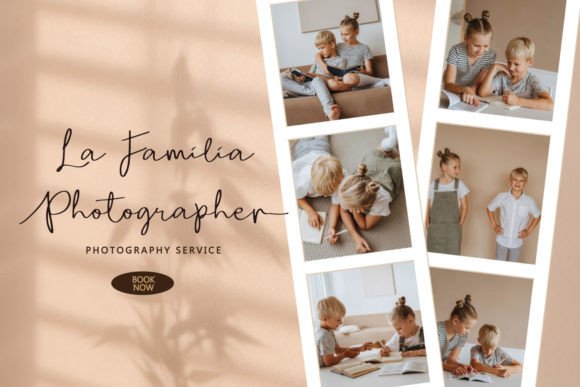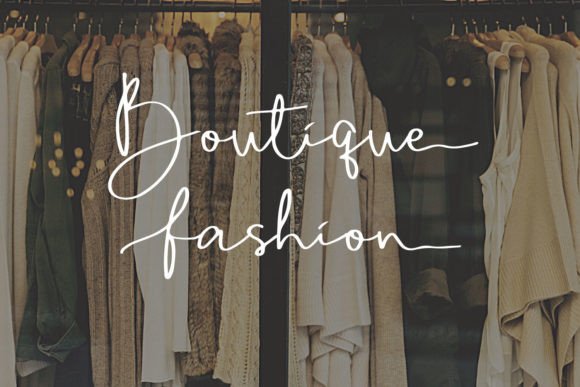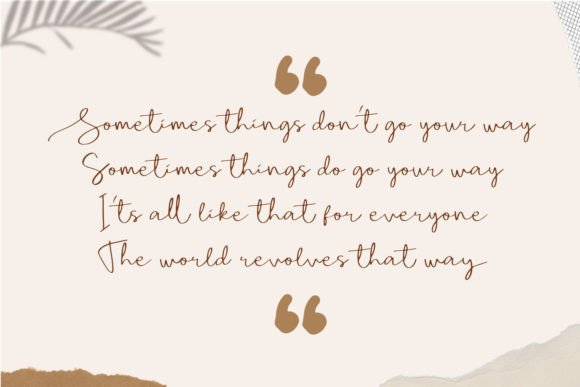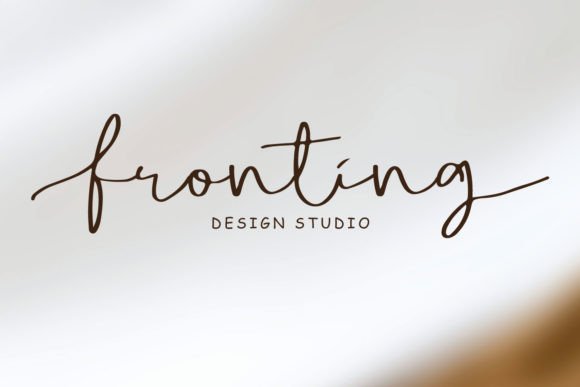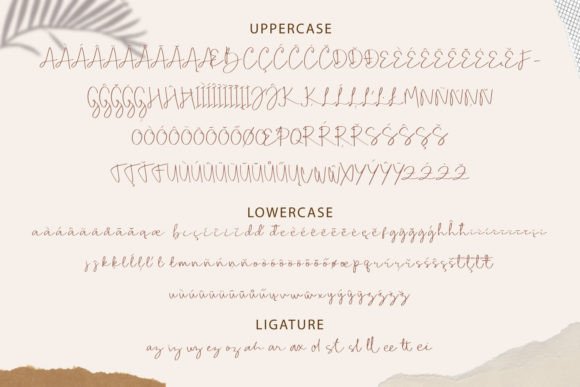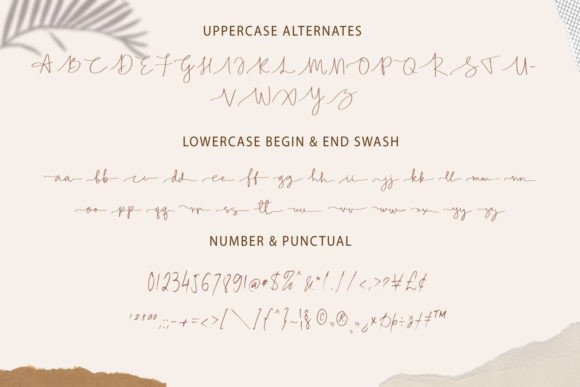
Beyond Eternity Font: The Sweet and Delicate Handwritten Font for Romantic Designs
Are you a designer or crafter looking for a font that can add a touch of romance and elegance to your designs? Look no further than the Beyond Eternity font. This sweet and delicate handwritten font is perfect for creating beautiful wedding invitations, cards, and other designs that require a personal and romantic touch.
What Makes Beyond Eternity Font Special?
Beyond Eternity is a handwritten font that exudes a sense of daintiness and joyfulness. Its delicate strokes and elegant letterforms make it an ideal choice for designers who want to create romantic and sophisticated designs. Whether you’re designing a wedding invitation, a greeting card, or a personalized gift, this font is sure to impress.
Key Features of Beyond Eternity Font
- Sweet and delicate handwritten font: Beyond Eternity is a beautifully crafted font that features delicate strokes and elegant letterforms.
- Dainty and joyful: This font is perfect for creating designs that require a touch of romance and playfulness.
- Ideal for wedding invitations and cards: Beyond Eternity is a popular choice among designers who create wedding invitations, cards, and other romantic designs.
- Personalized touch: This font is perfect for designers who want to add a personal touch to their designs.
How to Use Beyond Eternity Font in Your Designs
Using Beyond Eternity font in your designs is easy. Here are a few tips to get you started:
- Pair it with other fonts: Beyond Eternity font pairs well with other fonts, such as serif and sans-serif fonts. Experiment with different font combinations to create unique and interesting designs.
- Use it for headings and body text: This font is perfect for both headings and body text. Use it to create beautiful and elegant headings, and pair it with other fonts for body text.
- Add embellishments: Consider adding embellishments, such as flowers or lace, to your designs to enhance the romantic feel of the font.
Benefits of Using Beyond Eternity Font
There are many benefits to using Beyond Eternity font in your designs. Here are a few:
- Unique and elegant designs: Beyond Eternity font helps you create unique and elegant designs that will stand out from the crowd.
- Romantic and personalized touch: This font adds a romantic and personalized touch to your designs, making them perfect for wedding invitations, cards, and other special occasions.
- Easily readable: Beyond Eternity font is easily readable, making it perfect for body text and other designs where readability is important.
Who Can Use Beyond Eternity Font?
Beyond Eternity font is perfect for designers, crafters, and anyone who wants to create beautiful and elegant designs. Here are a few examples of who can use this font:
- Wedding designers: Wedding designers can use Beyond Eternity font to create beautiful wedding invitations, programs, and other wedding-related designs.
- Card makers: Card makers can use this font to create beautiful and elegant greeting cards for special occasions.
- Graphic designers: Graphic designers can use Beyond Eternity font to create elegant and sophisticated designs for their clients.
Beyond Eternity font is a beautiful and elegant handwritten font that is perfect for creating romantic and sophisticated designs. Its delicate strokes and elegant letterforms make it an ideal choice for designers who want to add a touch of romance and elegance to their designs. Whether you’re designing a wedding invitation, a greeting card, or a personalized gift, Beyond Eternity font is sure to impress.